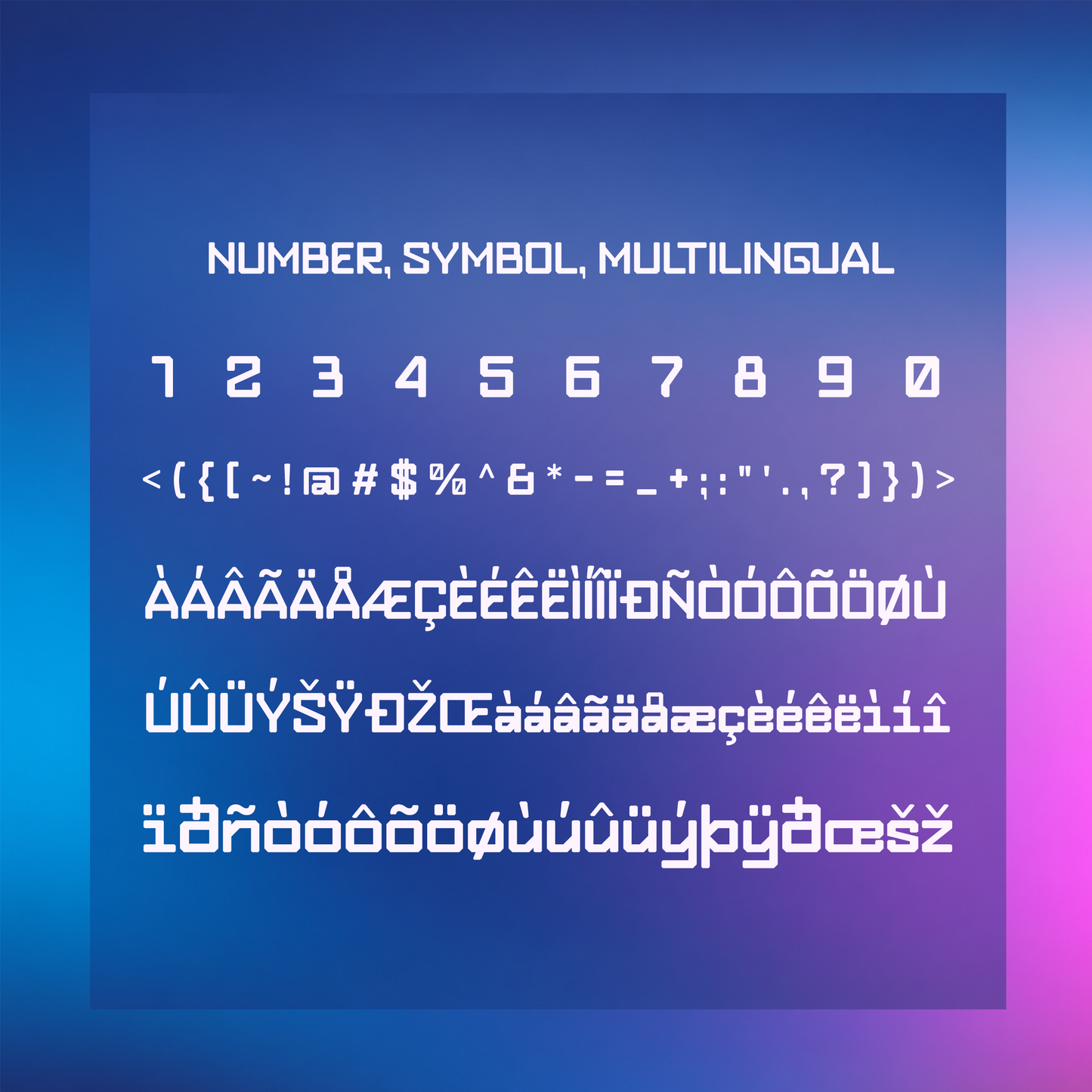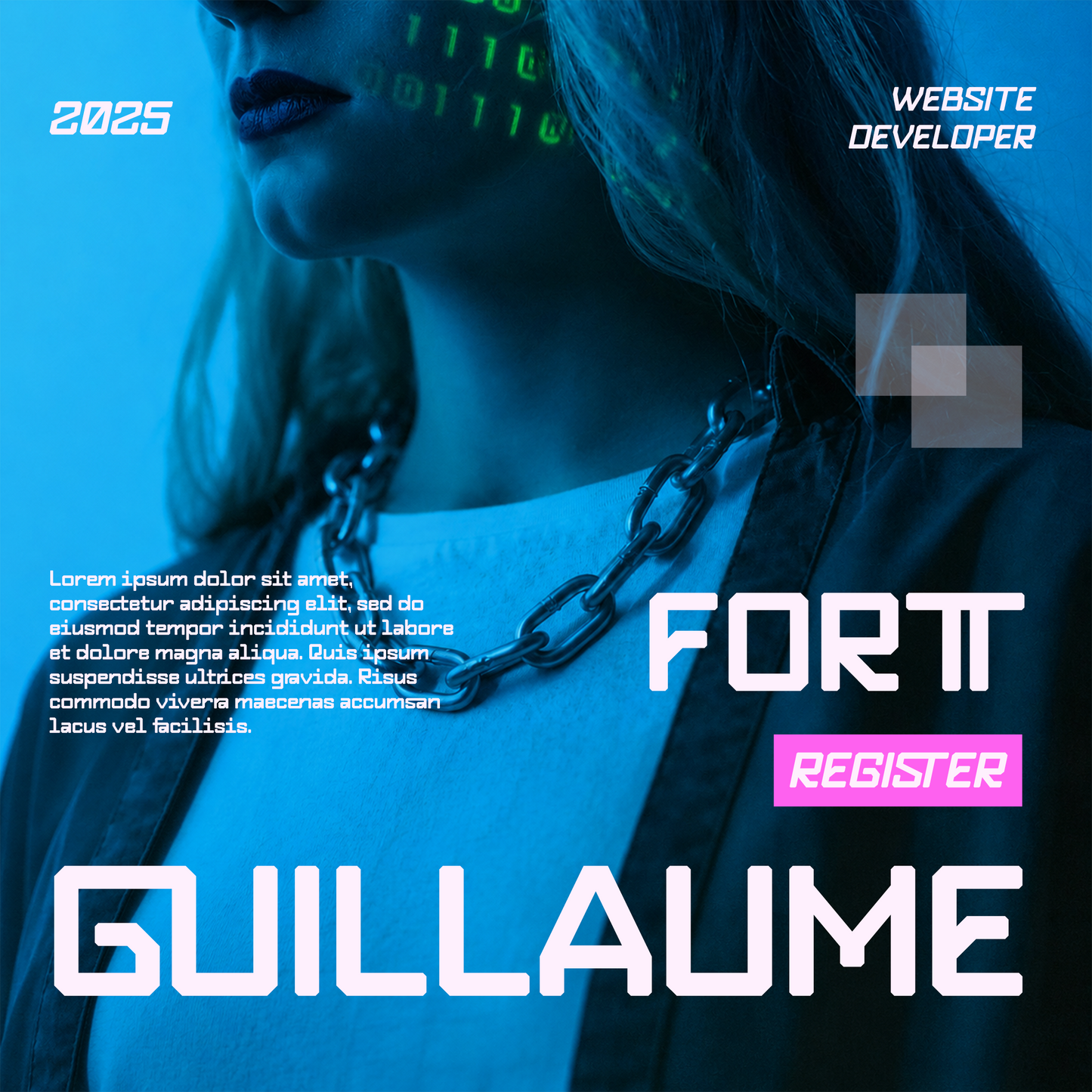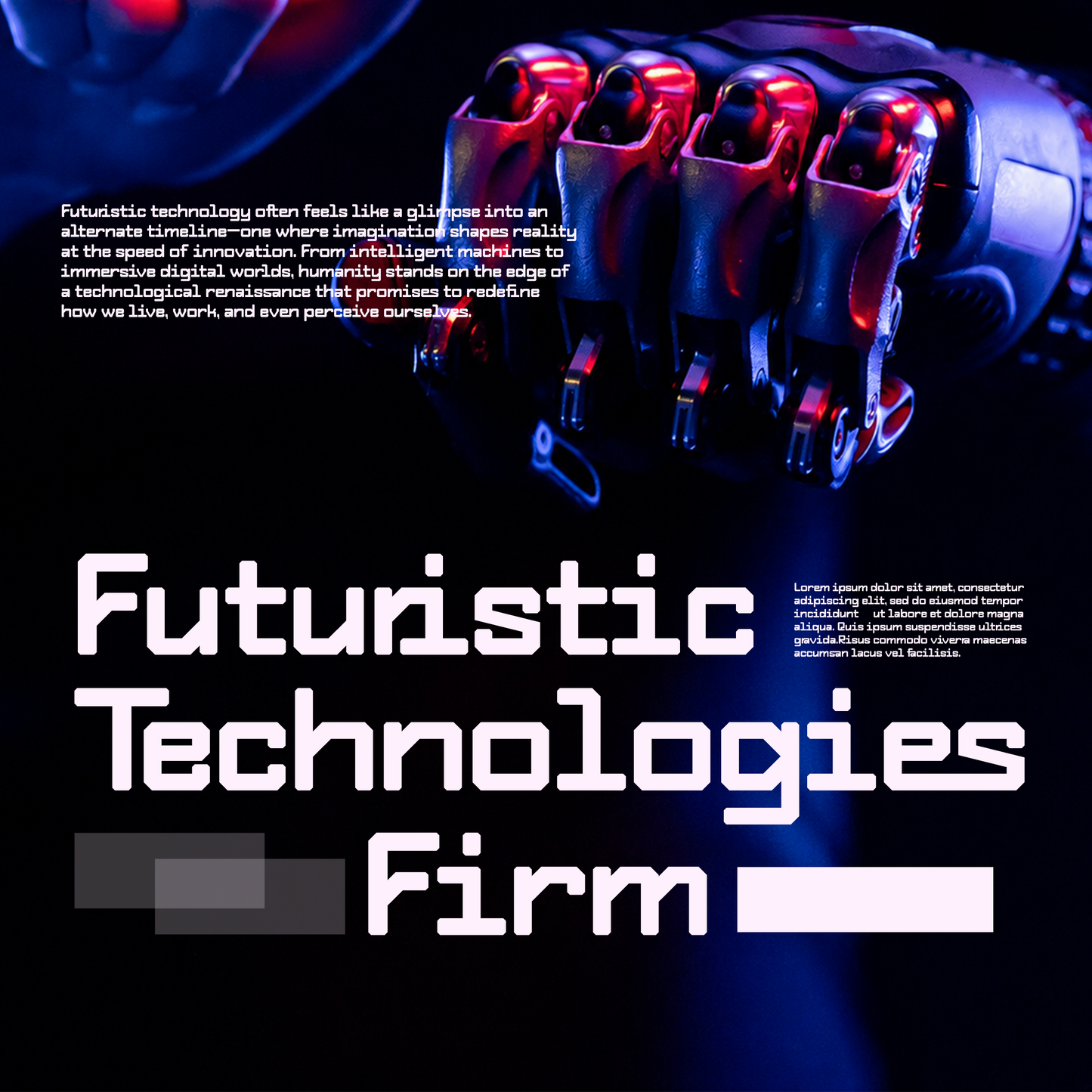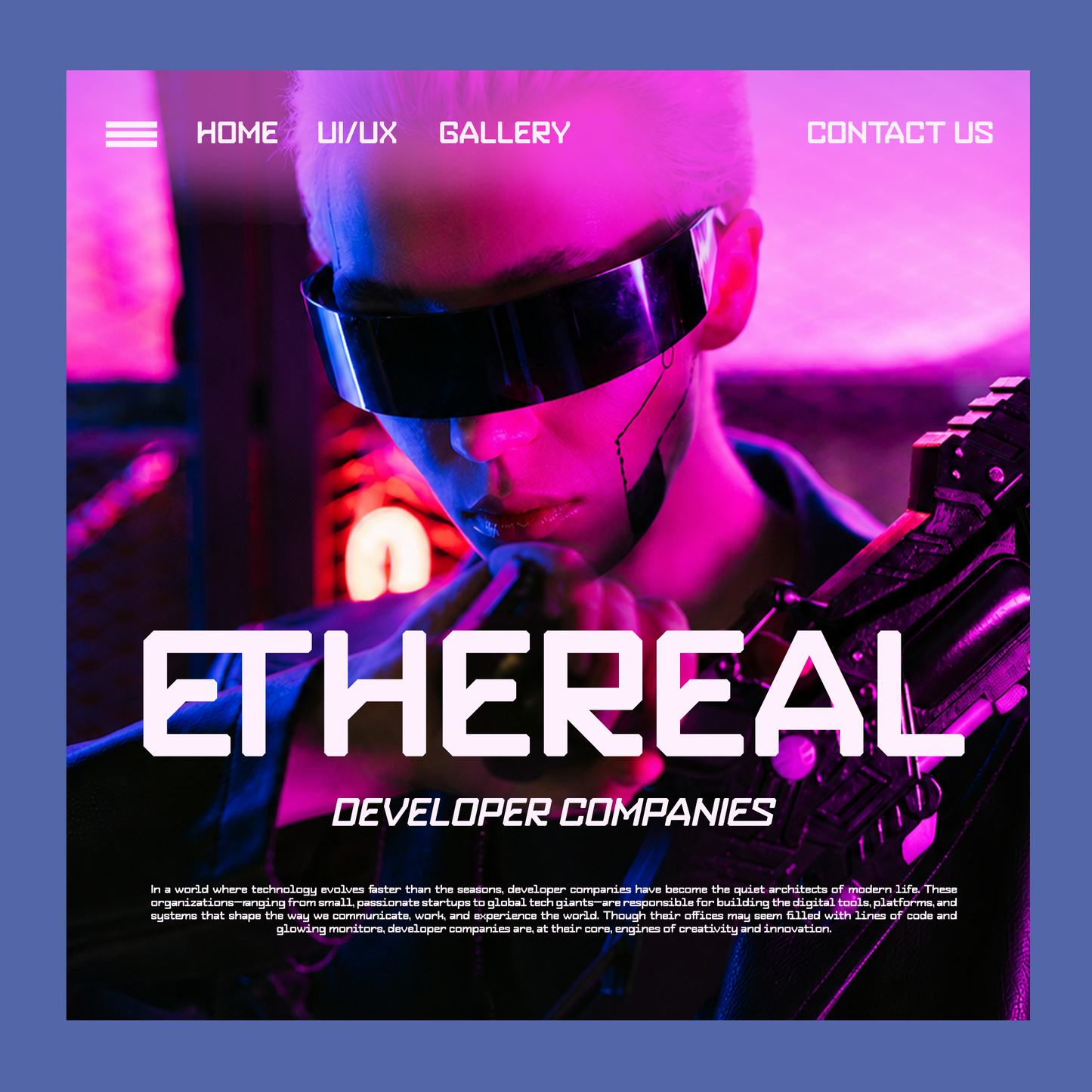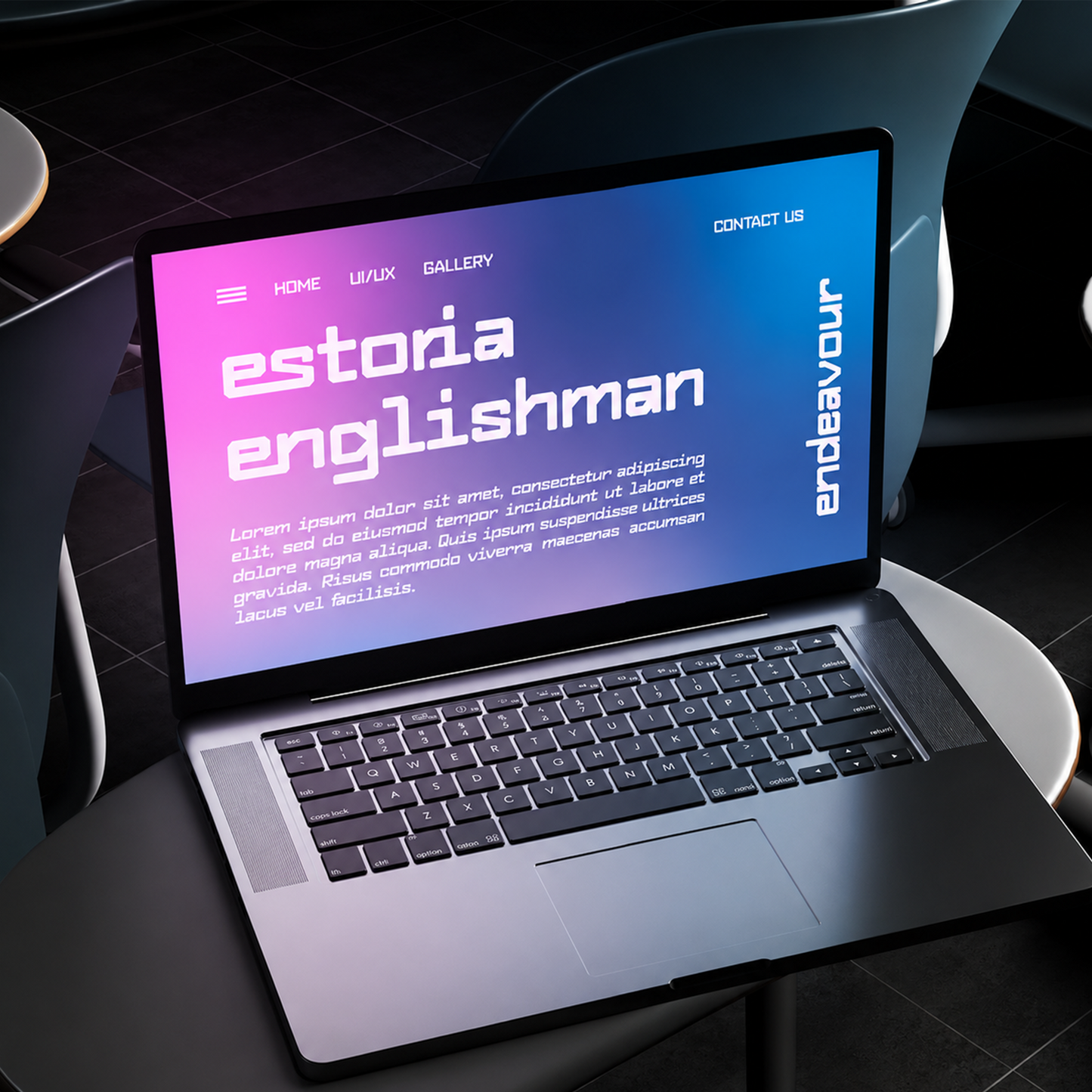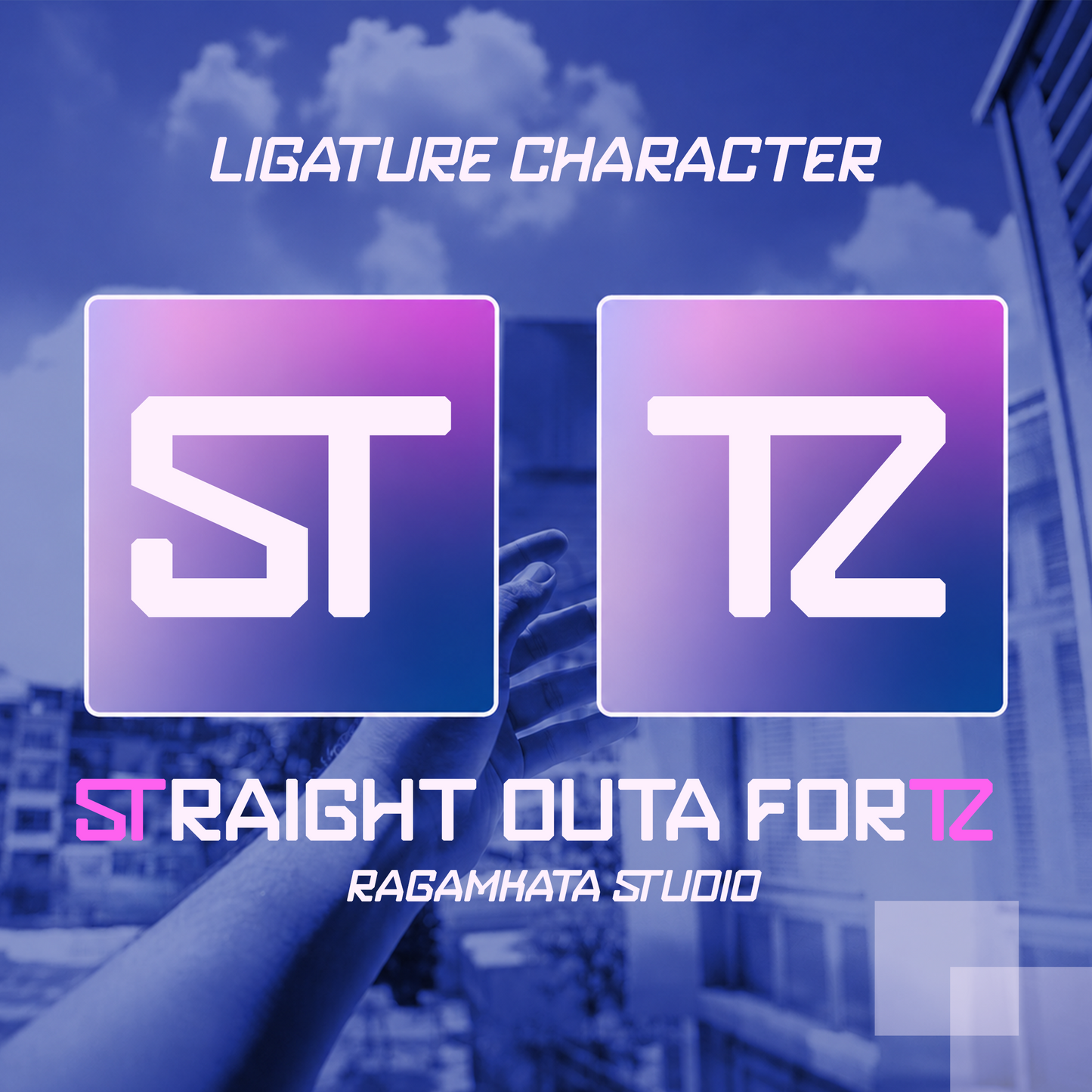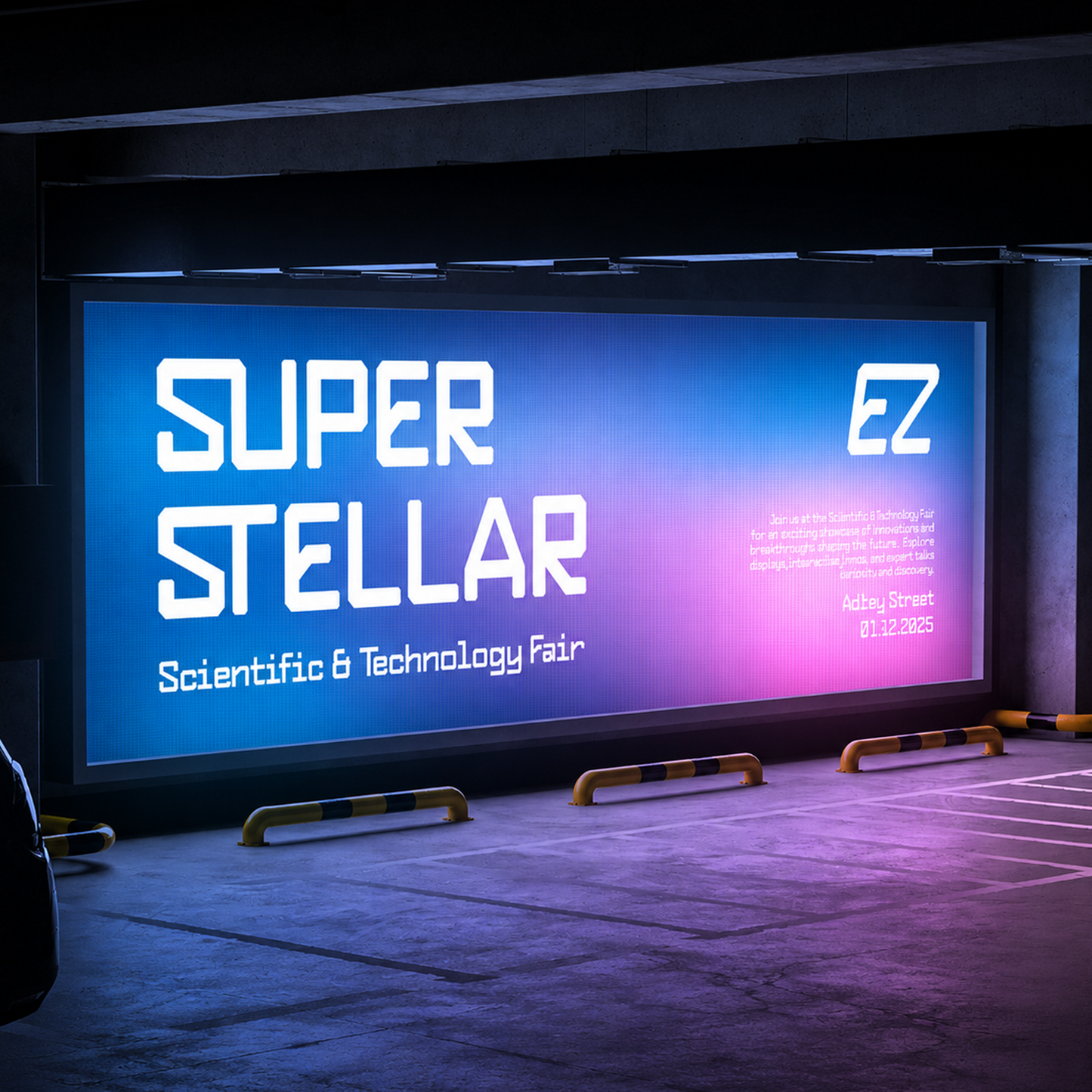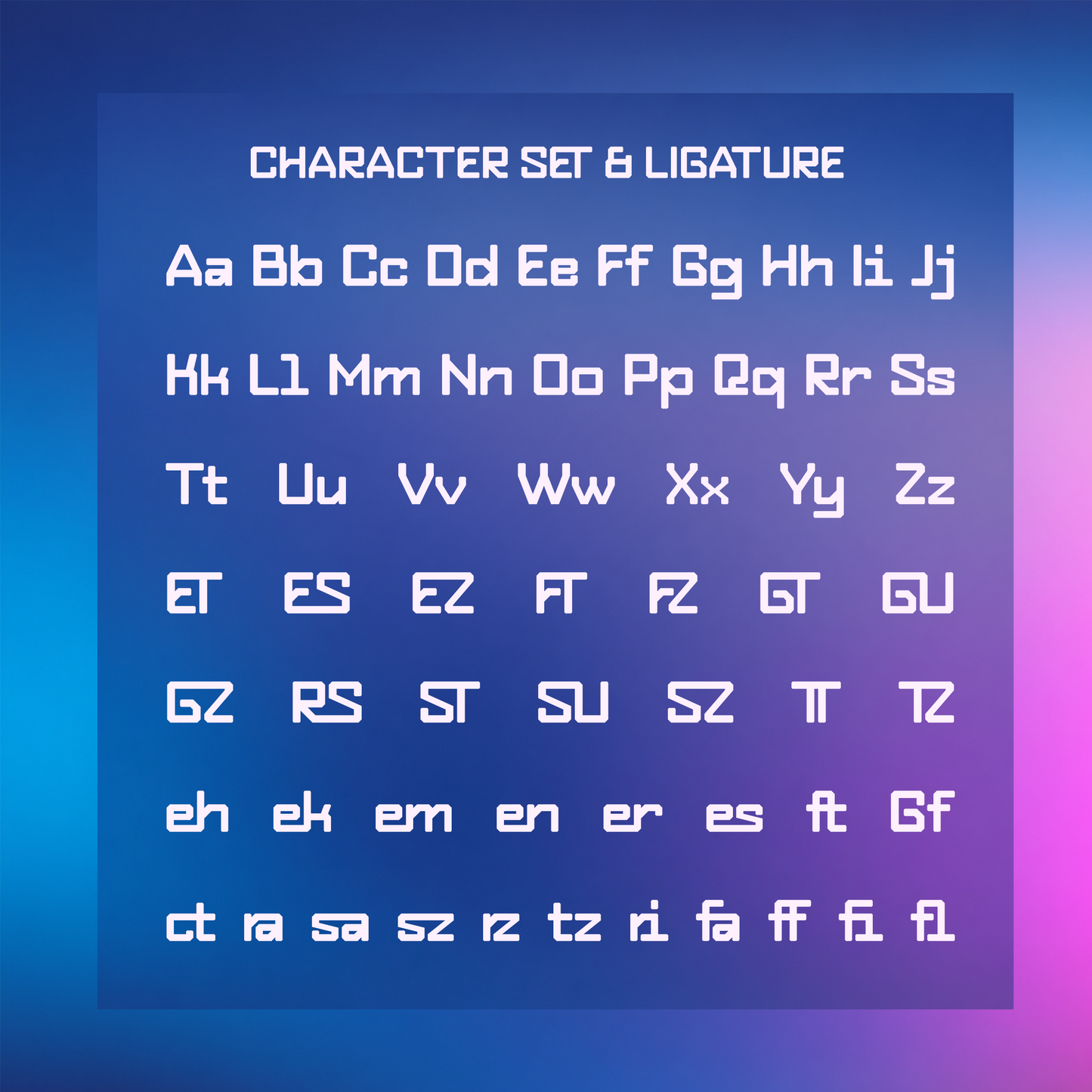
Ersiqust
Ragamkata Studio
Ersiqust is a futuristic monospace font designed to bring advanced technology aesthetics into modern design projects.
Inspired by technology, gaming environments, digital systems, and sci-fi visuals, Ersiqust is ideal for projects that demand a strong modern tech presence. Whether you're creating gaming titles, UI interfaces, startup branding, posters, coding-themed graphics, or futuristic editorial layouts, this font delivers a powerful futuristic tone.
— LIGATURES
— NUMBERS & SYMBOLS